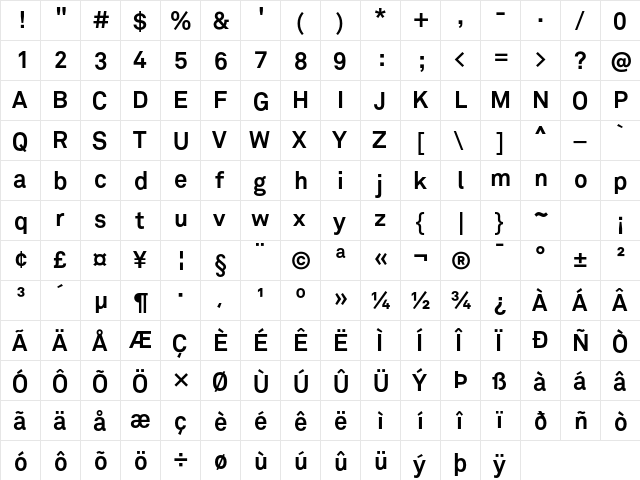
Akkurat Bold
| Foundry | Laurenz Brunner |
| Designer | Laurenz Brunner |
Design Context for Akkurat Typeface
Akkurat offers clean, dependable letterforms without strong stylistic allegiance, making it a practical choice for designers who need flexibility. Its bold stroke weight gives it real presence on the page.